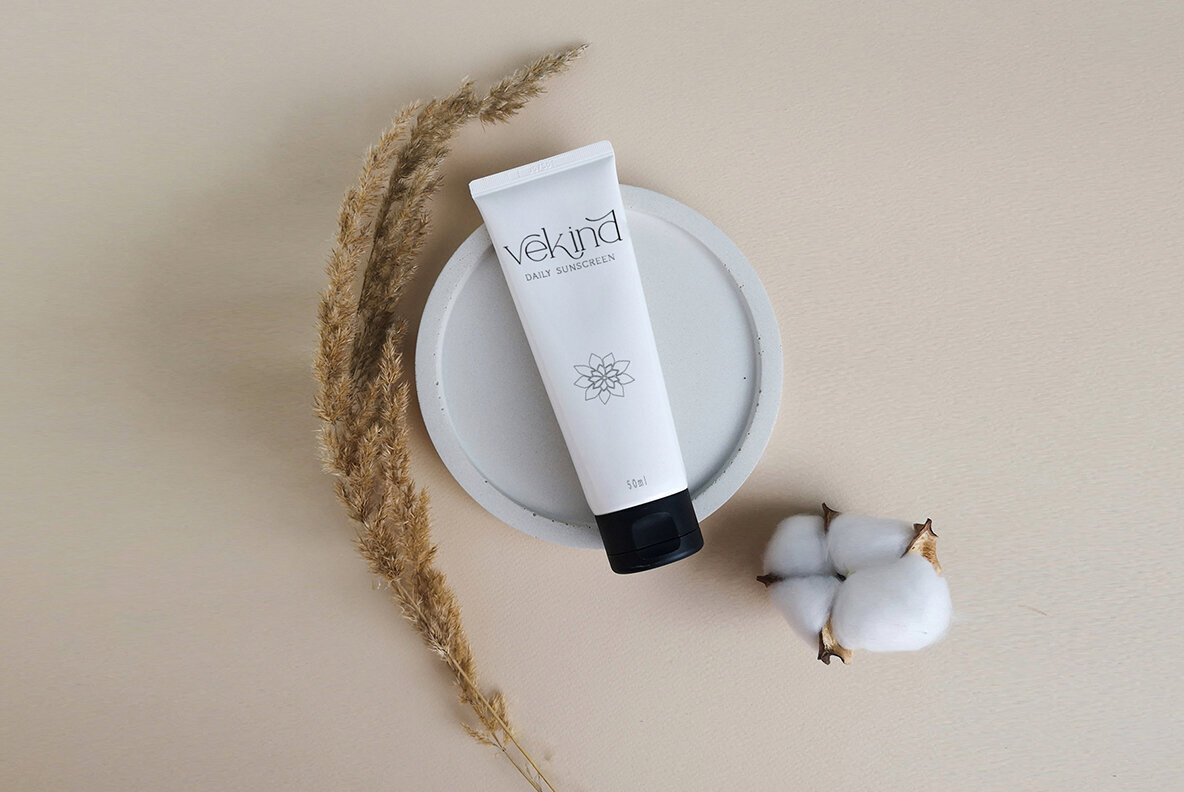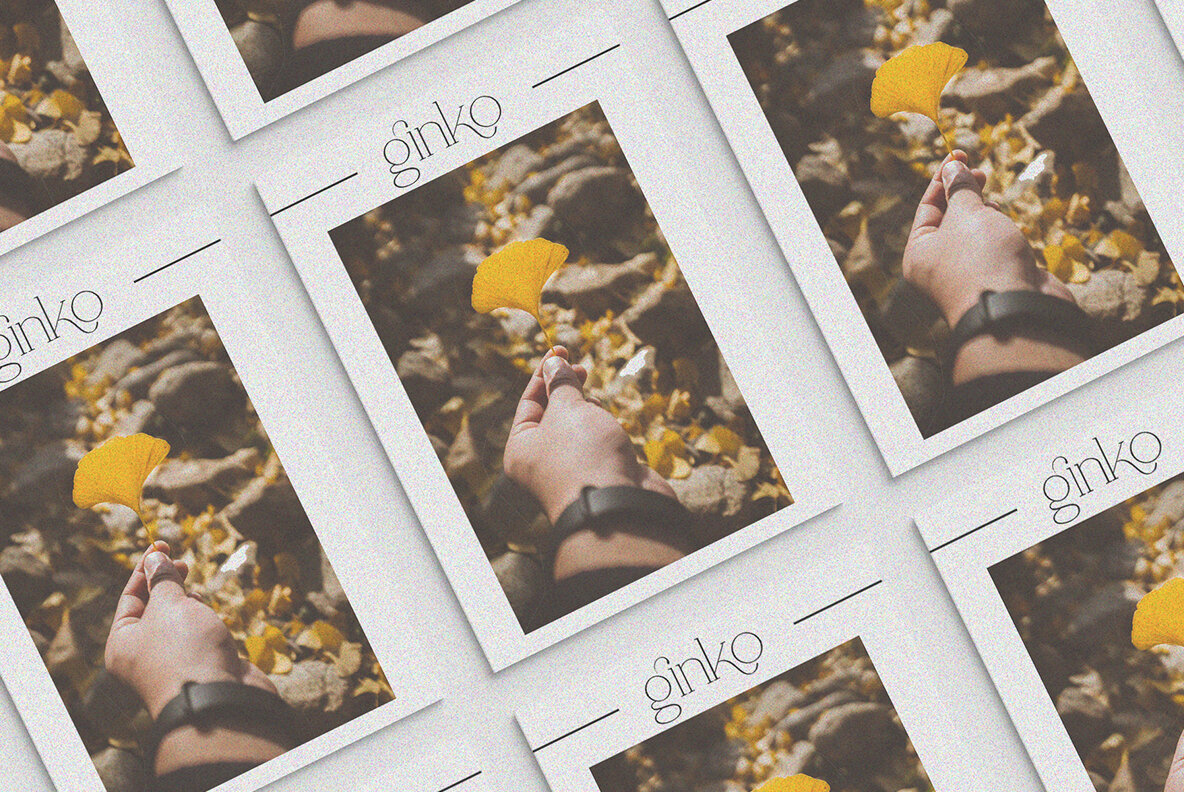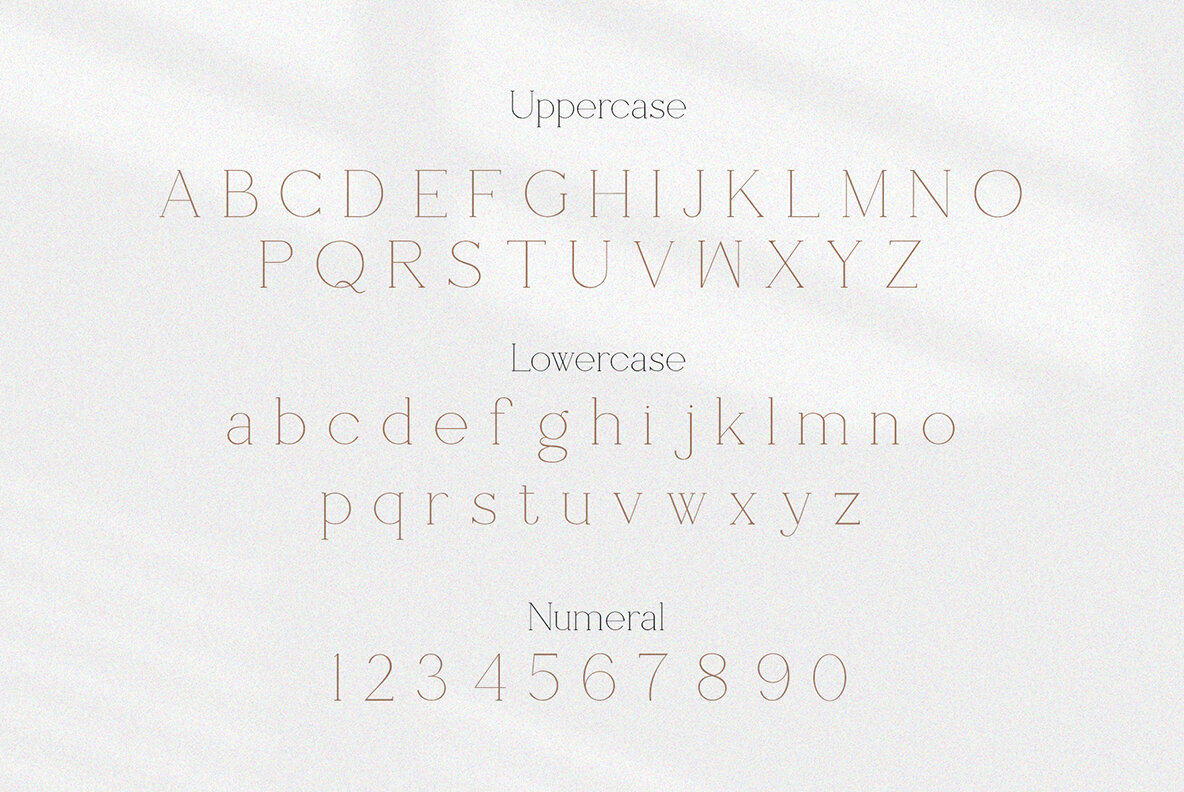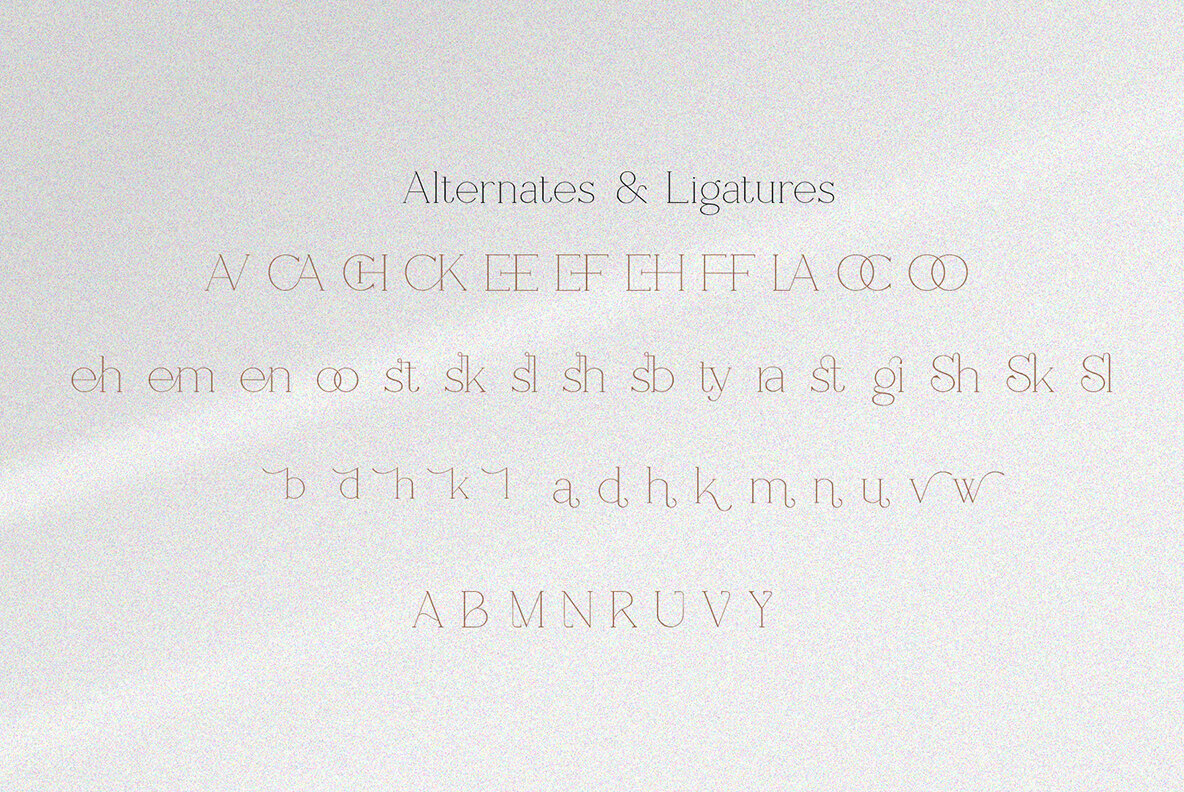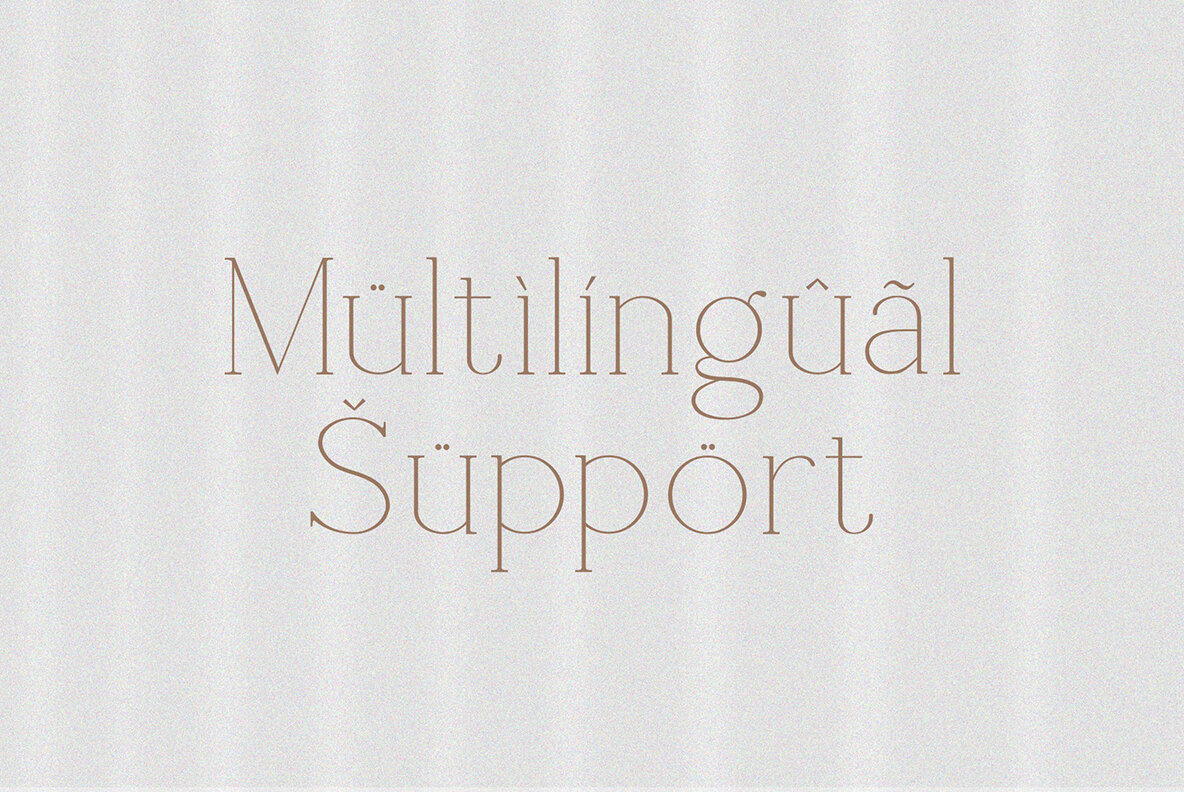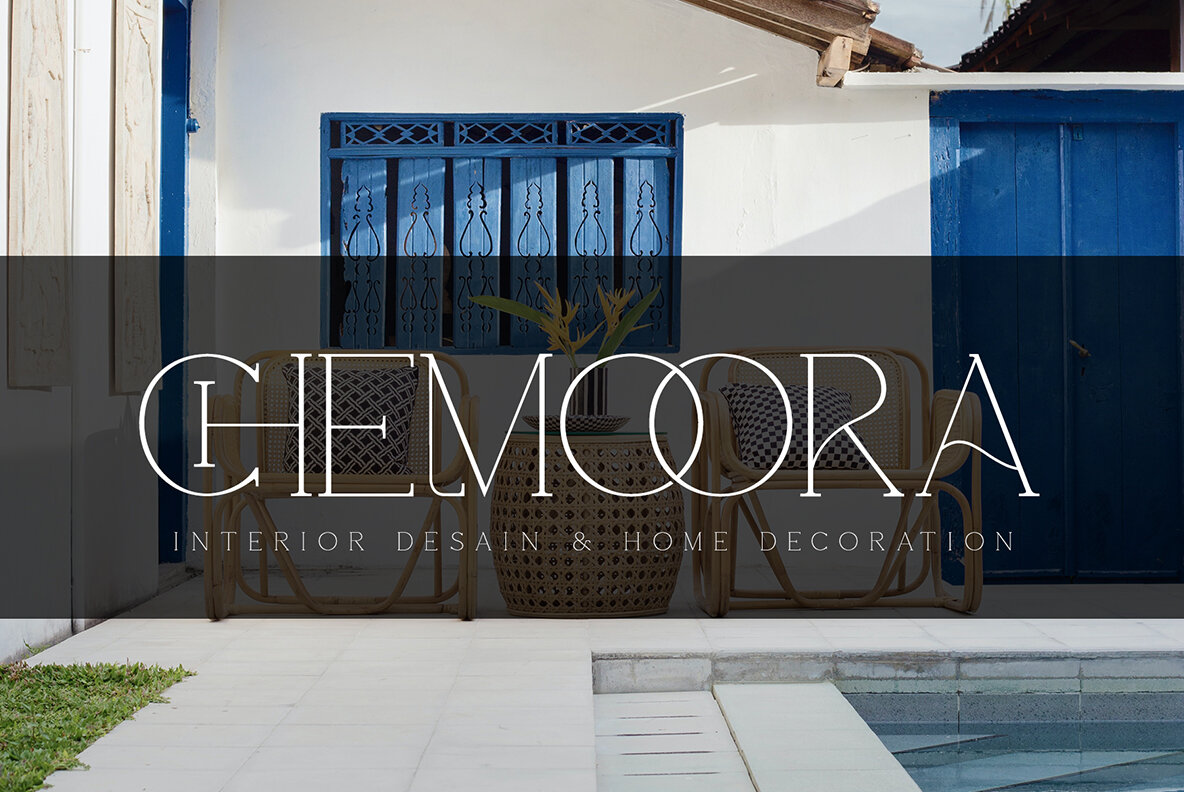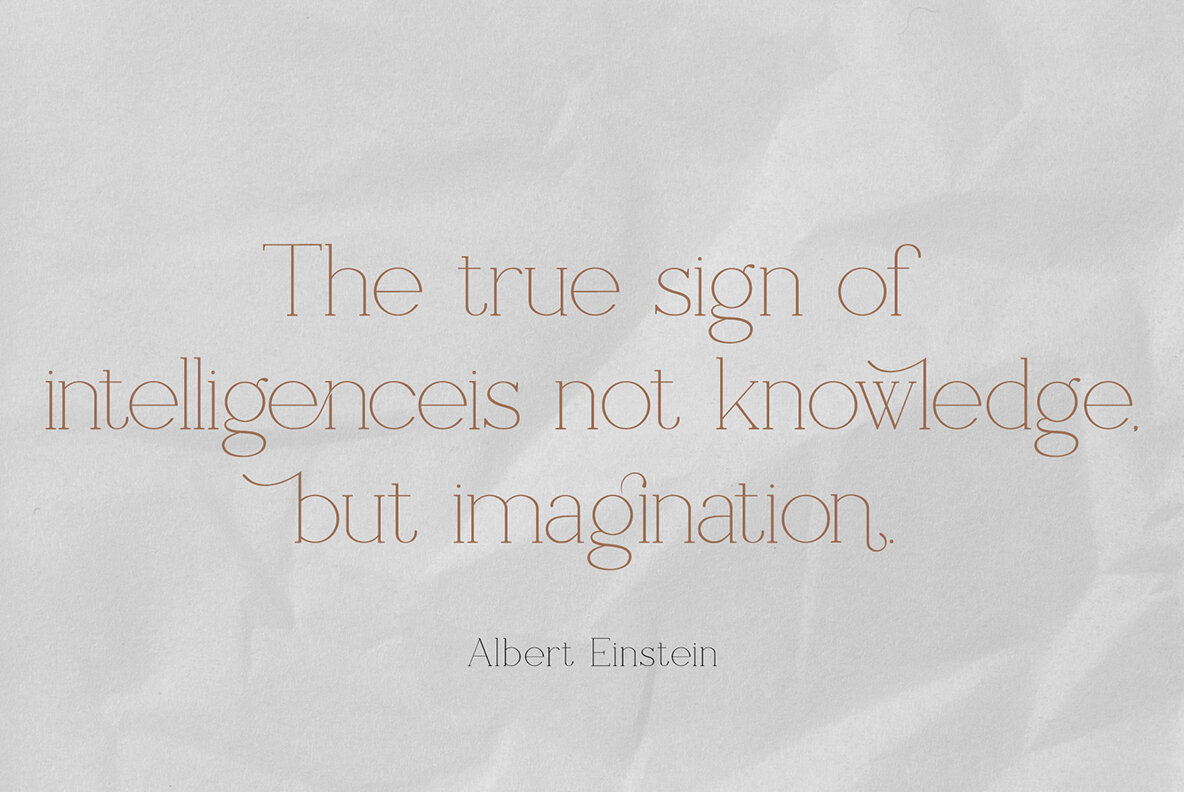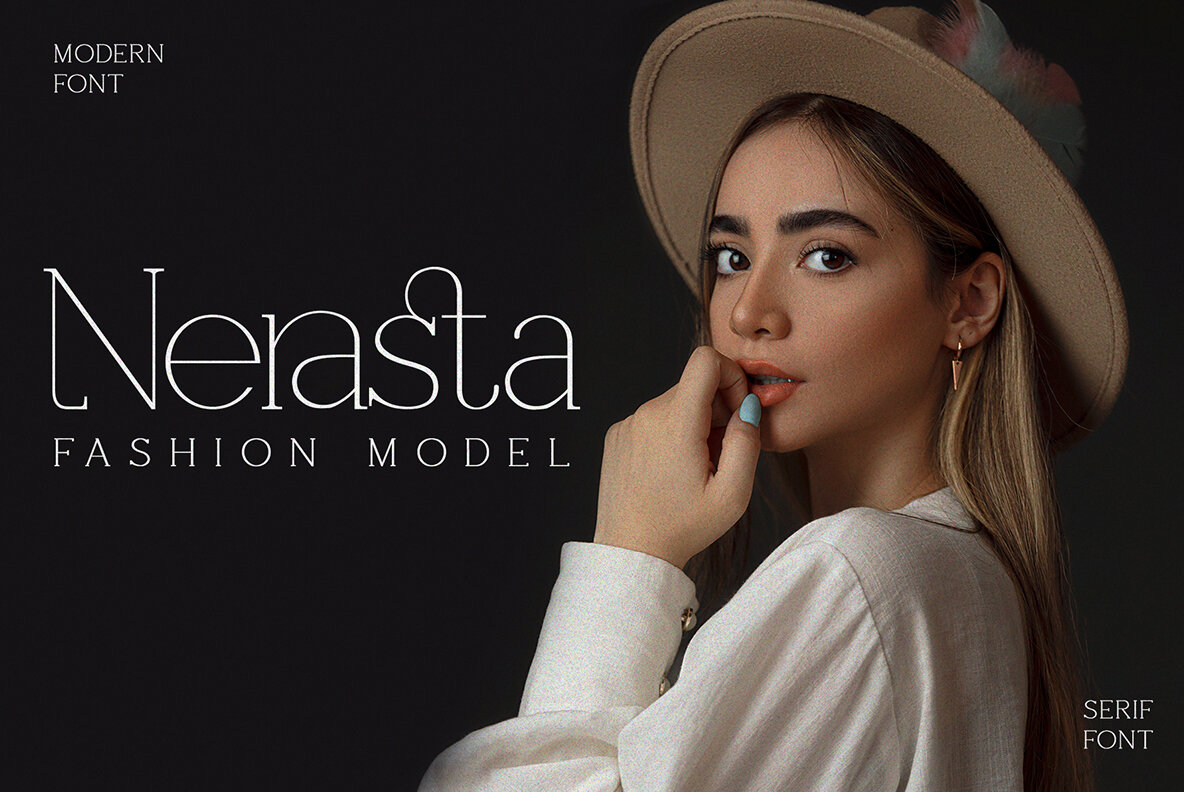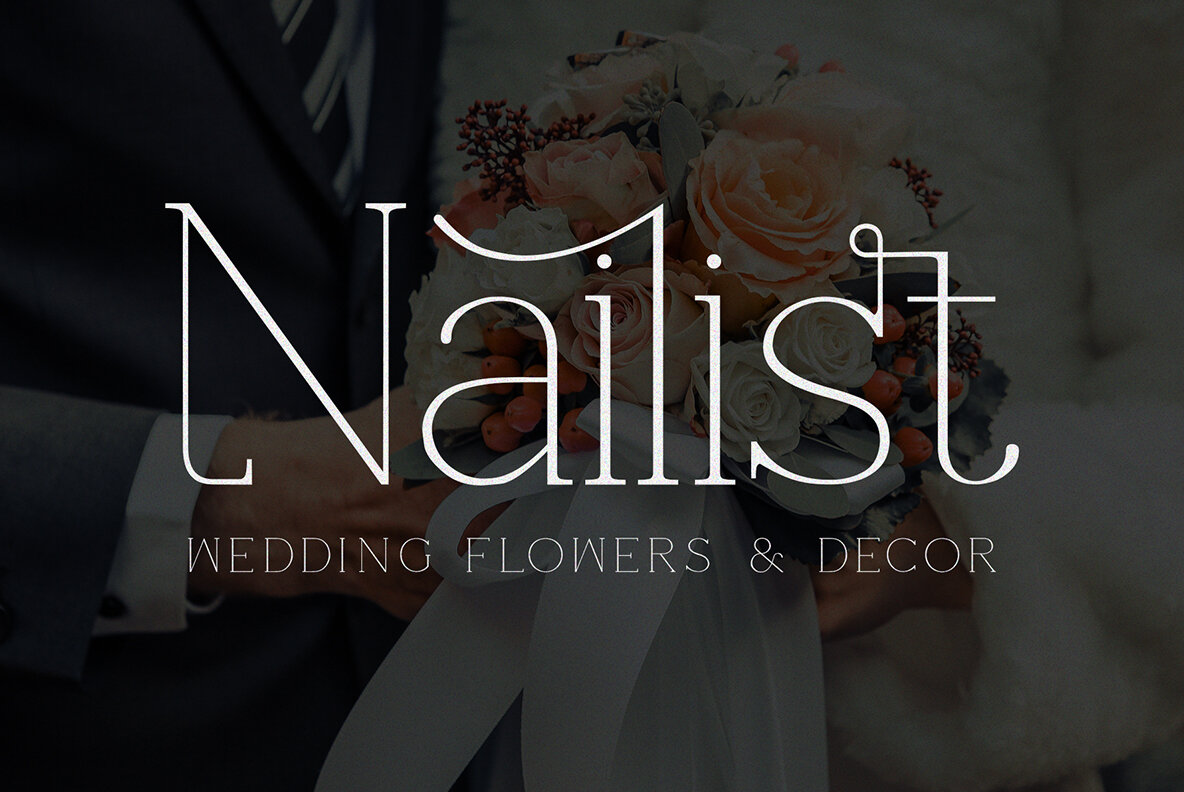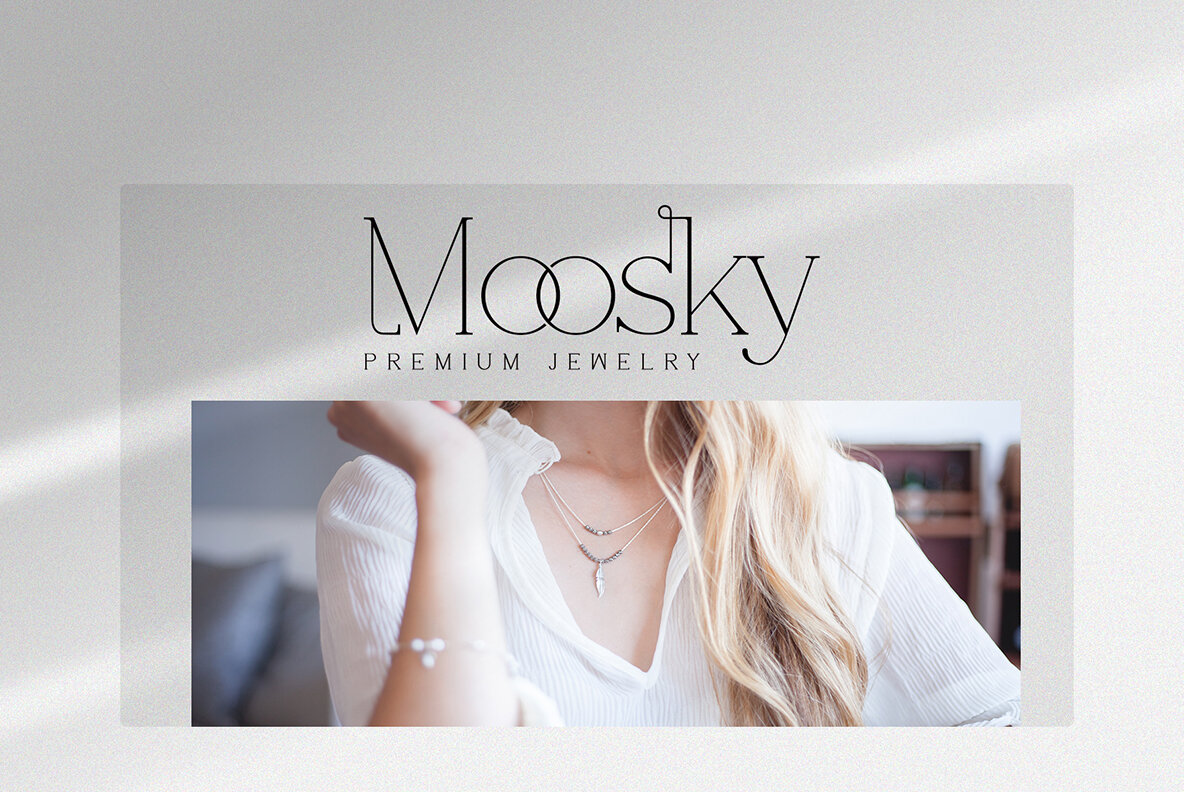
Shoogie Font
SHOOGIE Regular
Shoogie Serif is a well-balanced, smooth, and elegant serif font with beautiful character features. Perfect for invitation cards, company logos, movie titles, business cards, book titles, brand names, and various other designs, Shoogie Serif brings sophistication and elegance to any project. Its stylish alternations and ligatures enhance its versatility and aesthetic appeal.Shoogie Serif: Elegant and Stylish Typeface